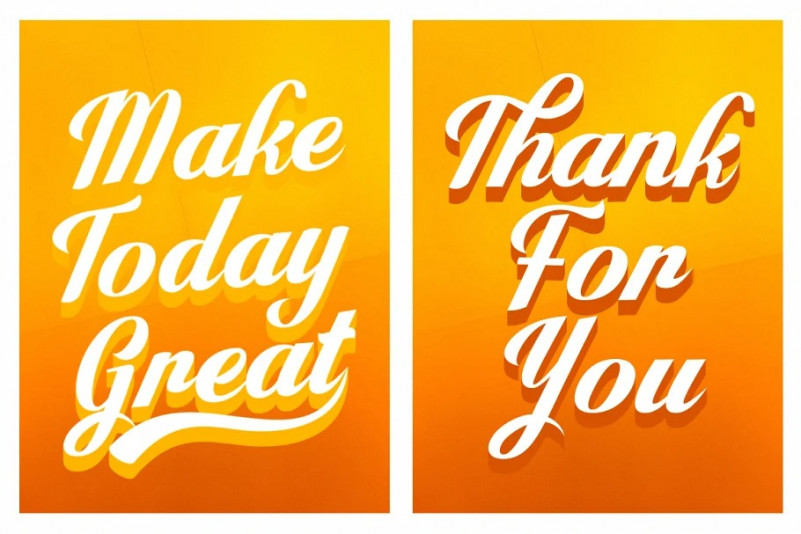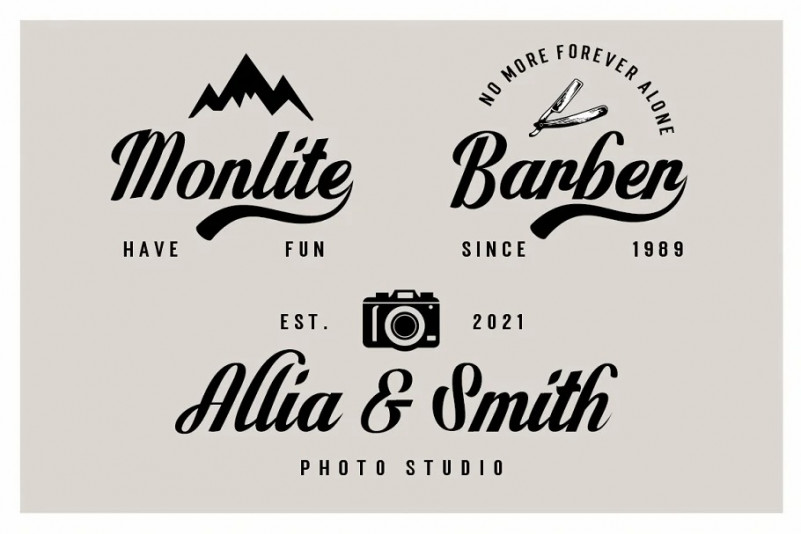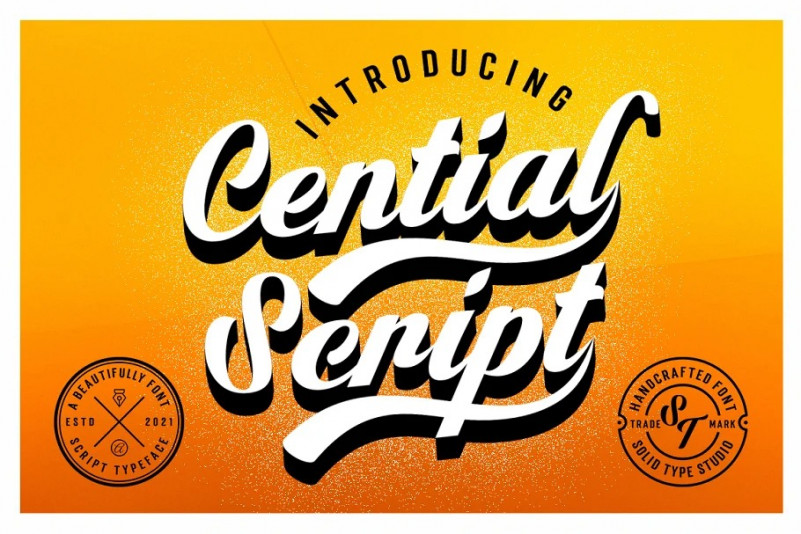
Cential Font
Cential Script Font is highly legible font, get touch of a bold, classic and fun vintage script font, Opentype features with stylistic alternates. Can be used for various purposes. such as posters, t-shirt, signage, logos, news, badges etc. International support for most Western Languages is included.